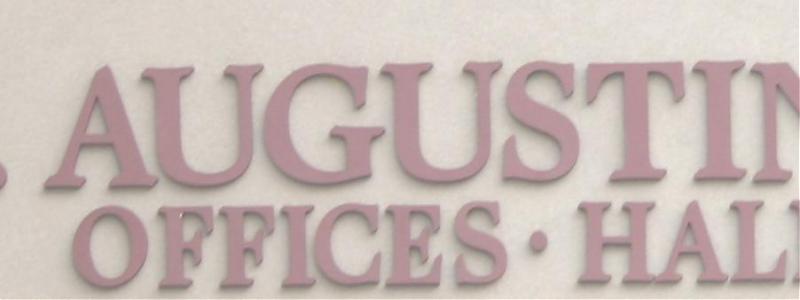
Just can't find this one.
Look at the top of the Letter A I think maybe came in gerber font pack
I see some similarities to some of the various Caslon styles but no match. The way the serifs are terminated at an angle is rarely seen ... Garth Graphic being a good example but the sample is not Garth Graphic.
Went through whole family of garth no luck.
You might want to check at the Gemini Letters website. they have several letter styles offered which I have never encountered outside of their catalog.
There used to be a guy here did alot with gerber stuff 8 yrs ago.
Alot of dimensional letters.
Thats why I thought it might be gerber.
There is a font called raleigh that is close.
Unless I am missing something that sure looks like Times Bold (Corel's Version)
If you look at the top of the "A", the top and bottom serifs on the "C" and the angular cutoff of the serifs in the original sample versus anybody's version of Times, you will see that they are not even close to being the same.
The sample shown exhibits characteristics of the "Caxton", "Garth Graphic" and "Raleigh" families. This may be a "Bastard" font comprised of all three. The secondary copy line appears to be condensed in a program judging by the left stroke weight (of the "A") in relation to its cross stroke weight. I can't tell from the picture if the letters are Pin Routed or Blade Cut. If the inside corners of the "A" are pointed tight, I'd say the letters are saw cut and may be a semi-custom rendition of any of the three fonts mentioned, and created by the individual doing the cutting. I have been known to do this on occasions, so its entirely possible that these letters were also. I have not found any fonts that match 100%. the three mentioned are the closest so far. Now, I too really want to know what it is. At this point, I'd say pick one of the three and do a little node editing where necessary.